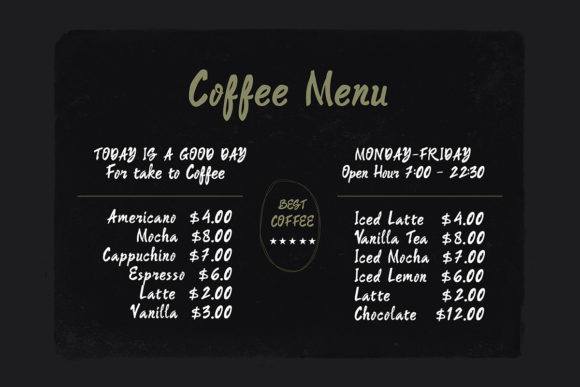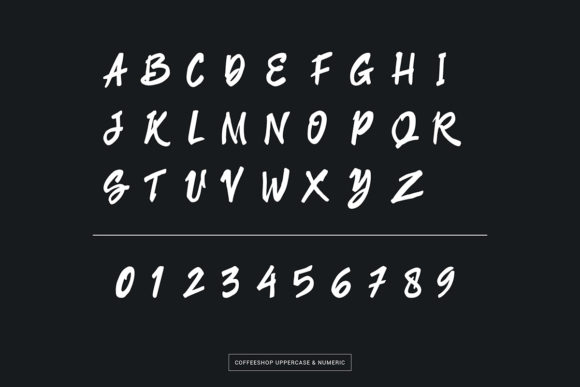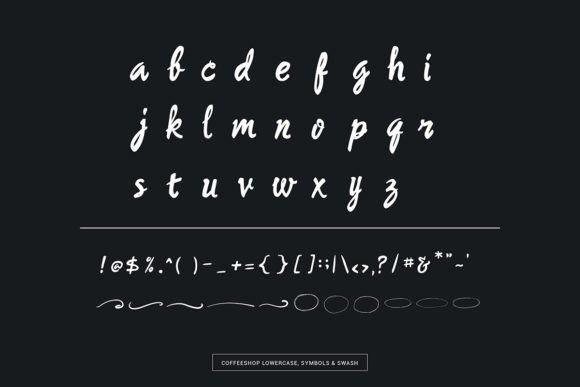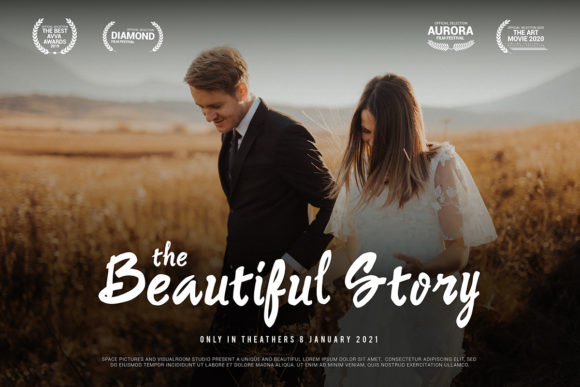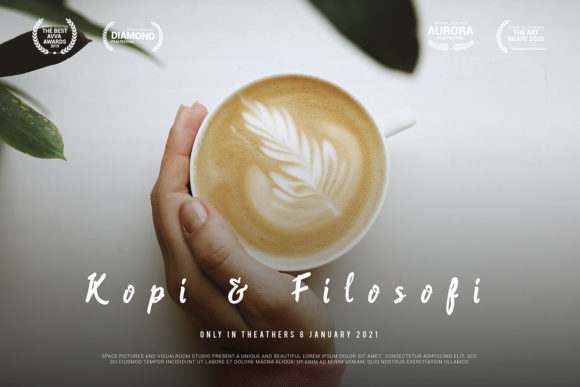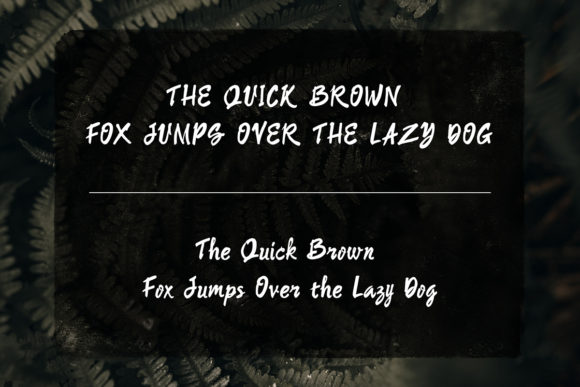
The Charm of Coffee Shop Font: A Designer’s New Best Friend
I’ll never forget the moment I stumbled upon the Coffee Shop font. I was working on a DIY project for a client’s coffee shop, and I was struggling to find the perfect font that would capture the cozy, inviting atmosphere I wanted to convey. That’s when I saw it – a stunning pairing of a brush pen and pencil that made it look incredibly endearing and authentic. It was love at first sight! 💕
So, what makes Coffee Shop font so special? Let’s dive into the good stuff and a few quirks I’ve discovered.
- ✨ Unique and authentic handwritten style that adds a personal touch to any project
- ✅ Easy to read and understand, even in smaller sizes
- 💫 Works beautifully for both digital and print projects
- 🎨 Highly versatile and can be used for a wide range of designs, from branding to packaging
- 🤔 Some letters, like the uppercase “Q” and “X”, might be a tad tricky to read if you’re not used to handwritten fonts
- ⚠️ Limited availability of stylistic alternates, which might limit your design options
Coffee Shop font was created by a talented designer who wanted to capture the warmth and coziness of a small coffee shop. The designer spent hours perfecting the font, pouring over sketches and refinements until the final product was just right. The result is a font that’s both authentic and endearing.
| Font Name | Coffee Shop Font |
| Author | Visualroom |
Here are a few questions I’ve received about Coffee Shop font:
| Is Coffee Shop font suitable for body text? | While Coffee Shop font is beautiful, it’s best used for headings, titles, and short paragraphs. For longer body text, a more traditional font might be easier to read. |